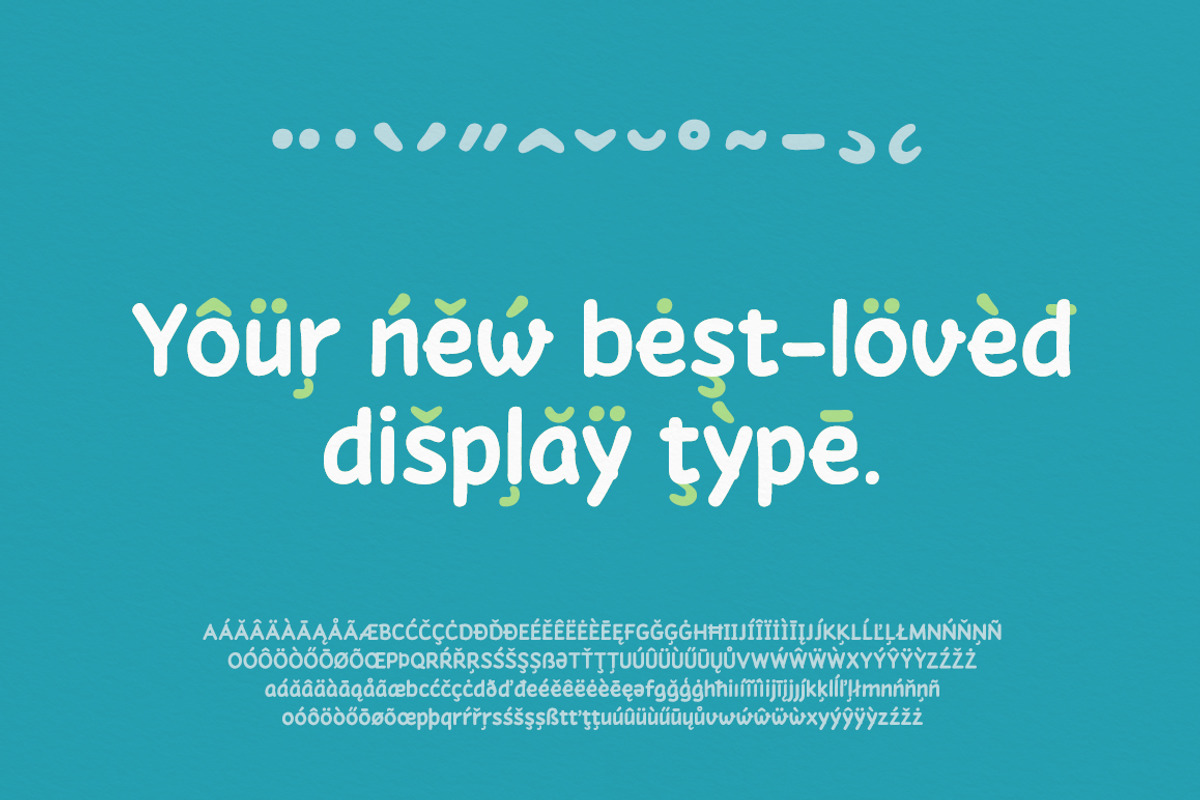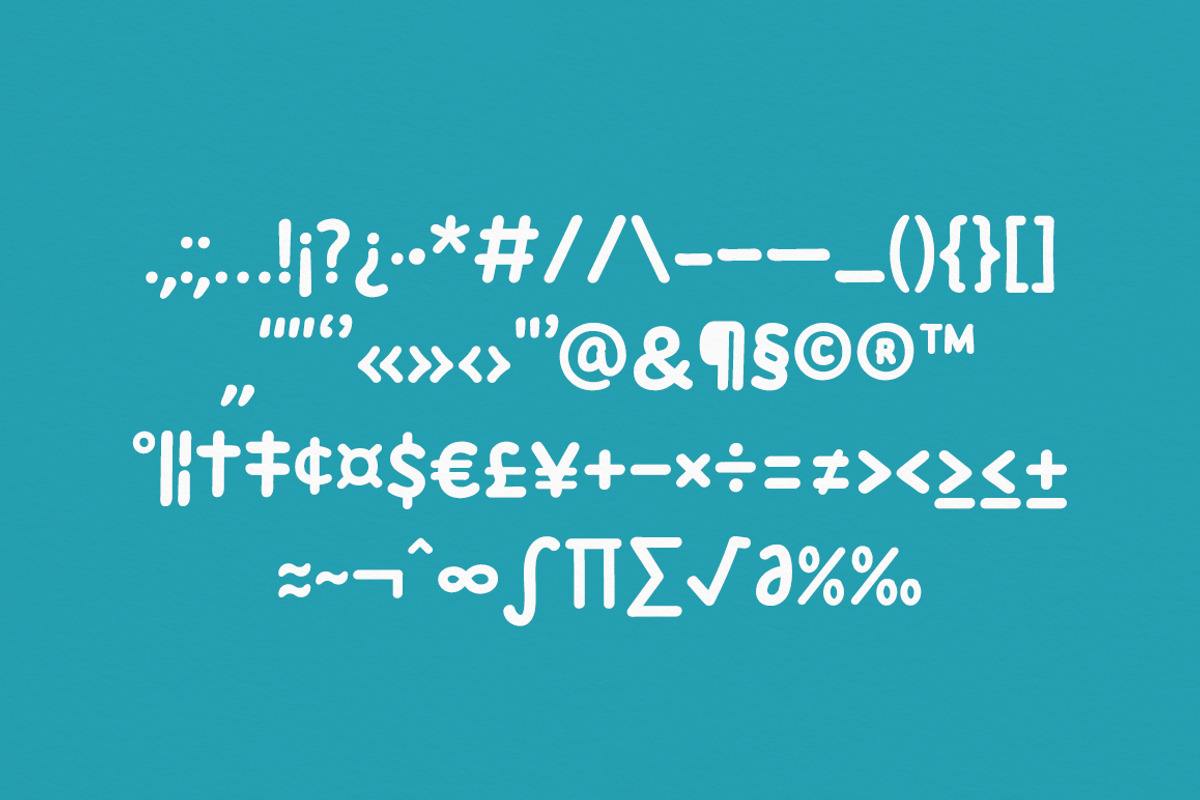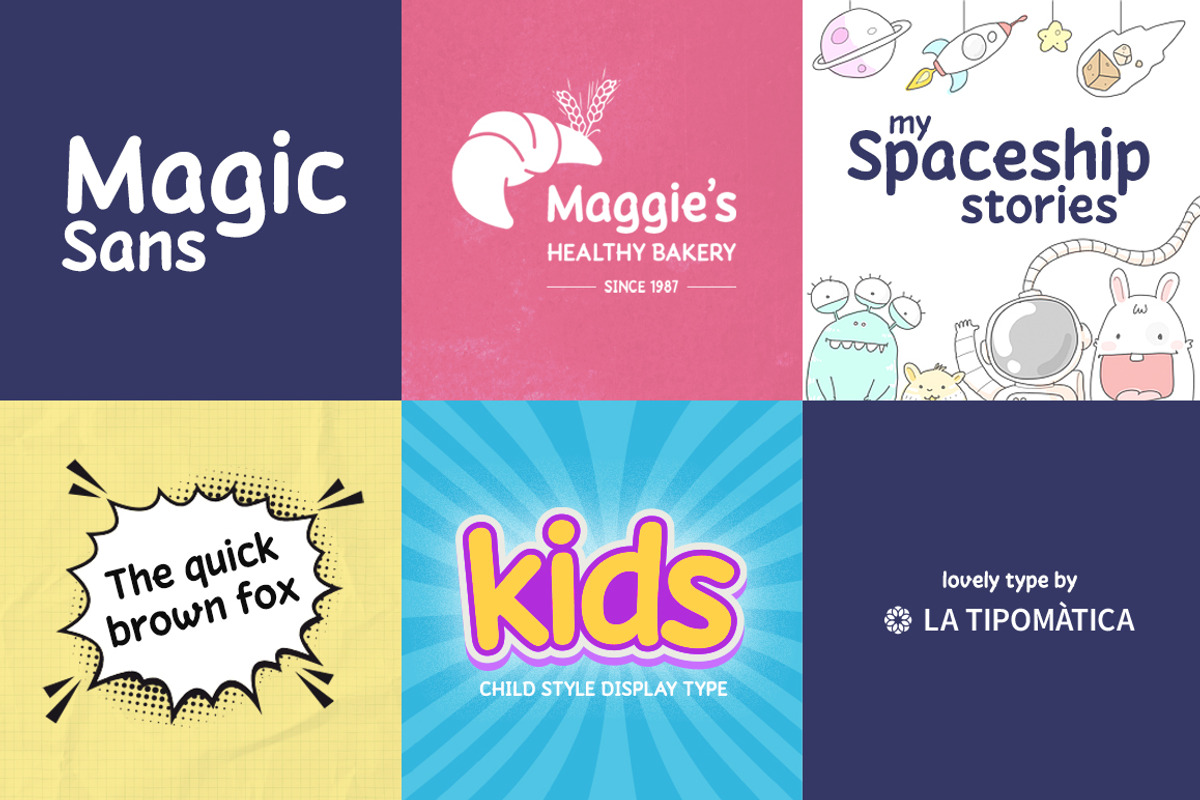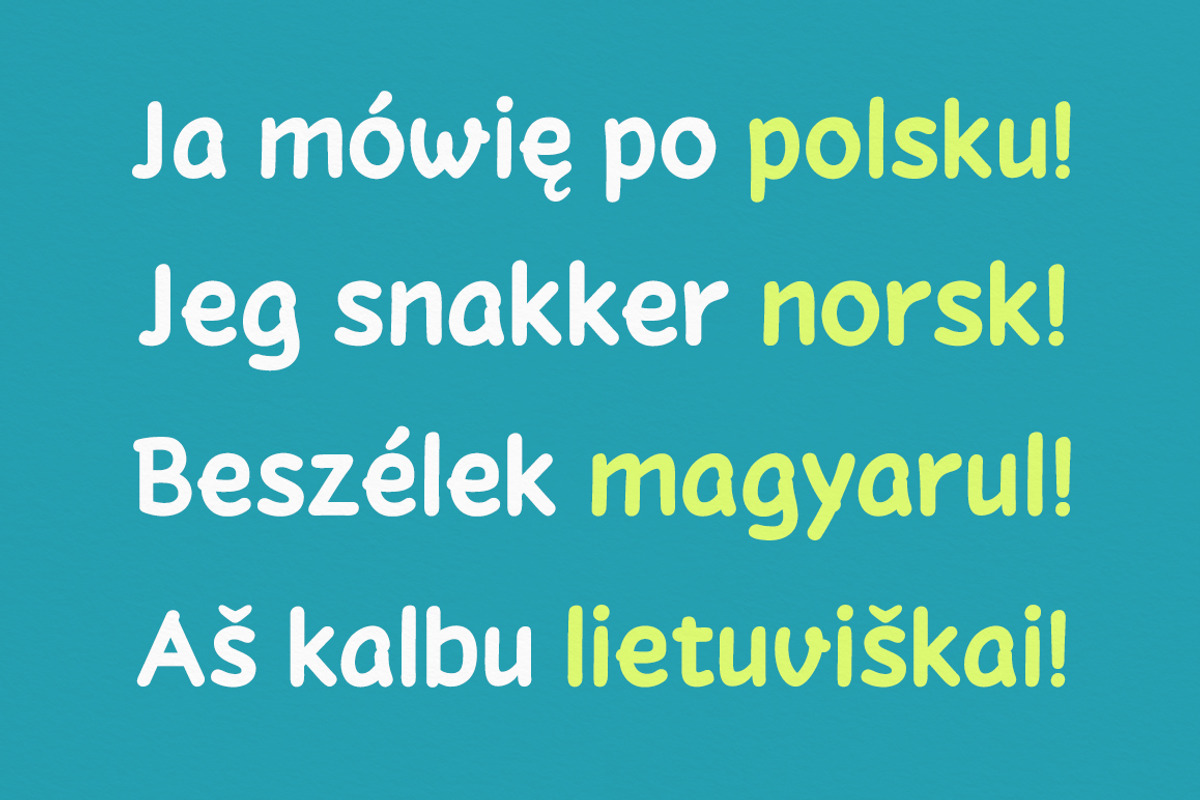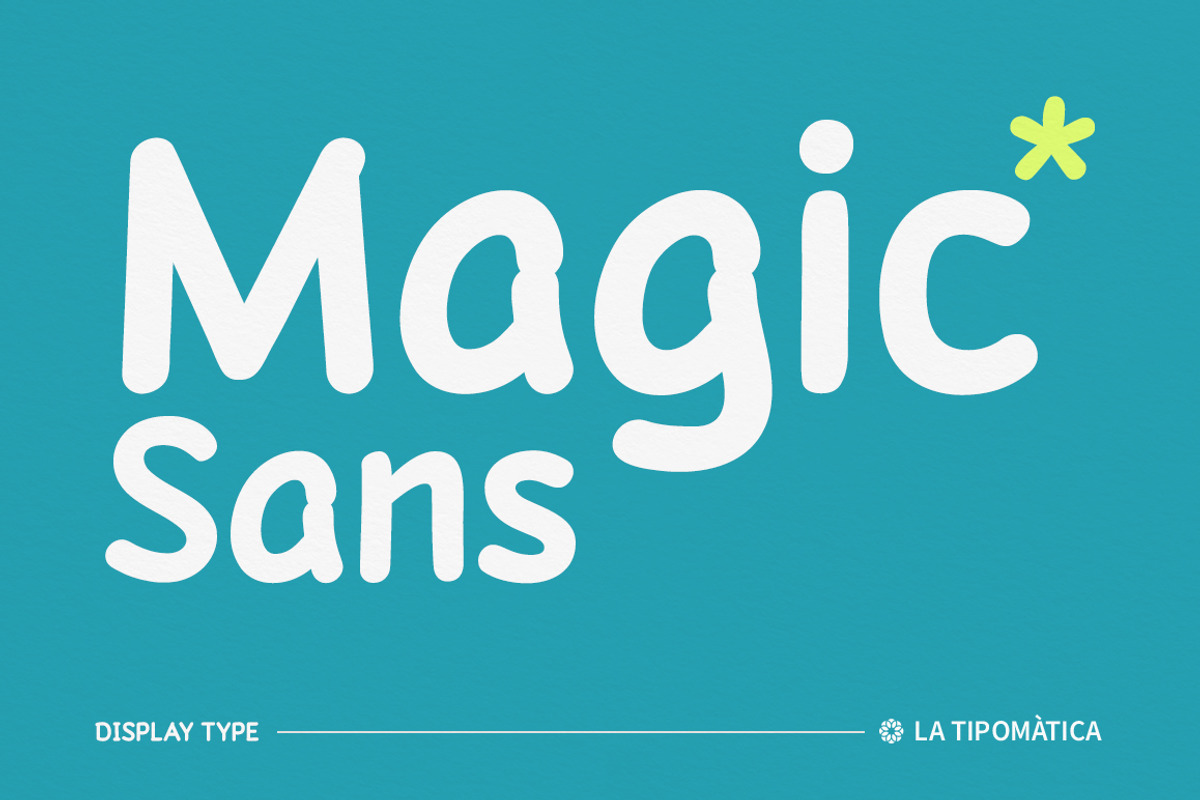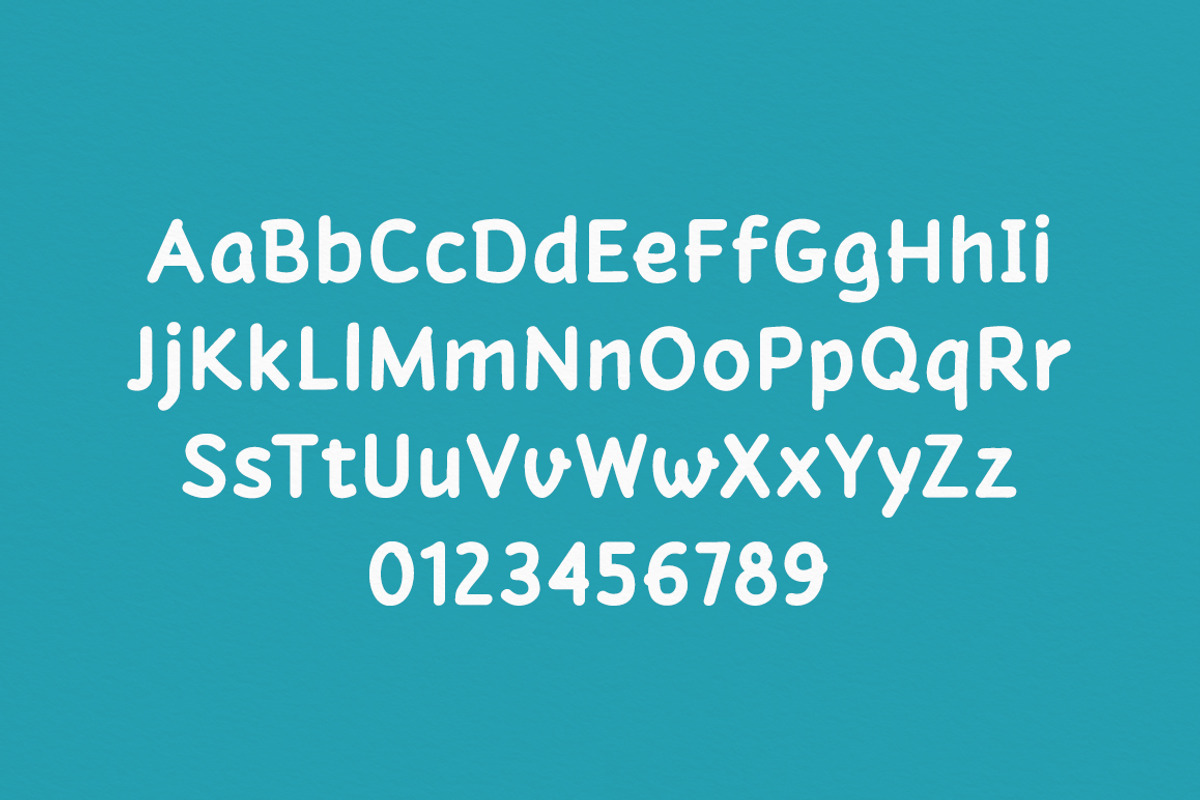
Magic Sans
Magic Sans is a bold display font with a casual and friendly style. Perfect for comic, childlike and cheerful designs.
- 1 Style Bold Display Typeface
- 336 Glyphs
- Extended Latin Character Set
- Punctuation & Symbols
- Accurate Kerning